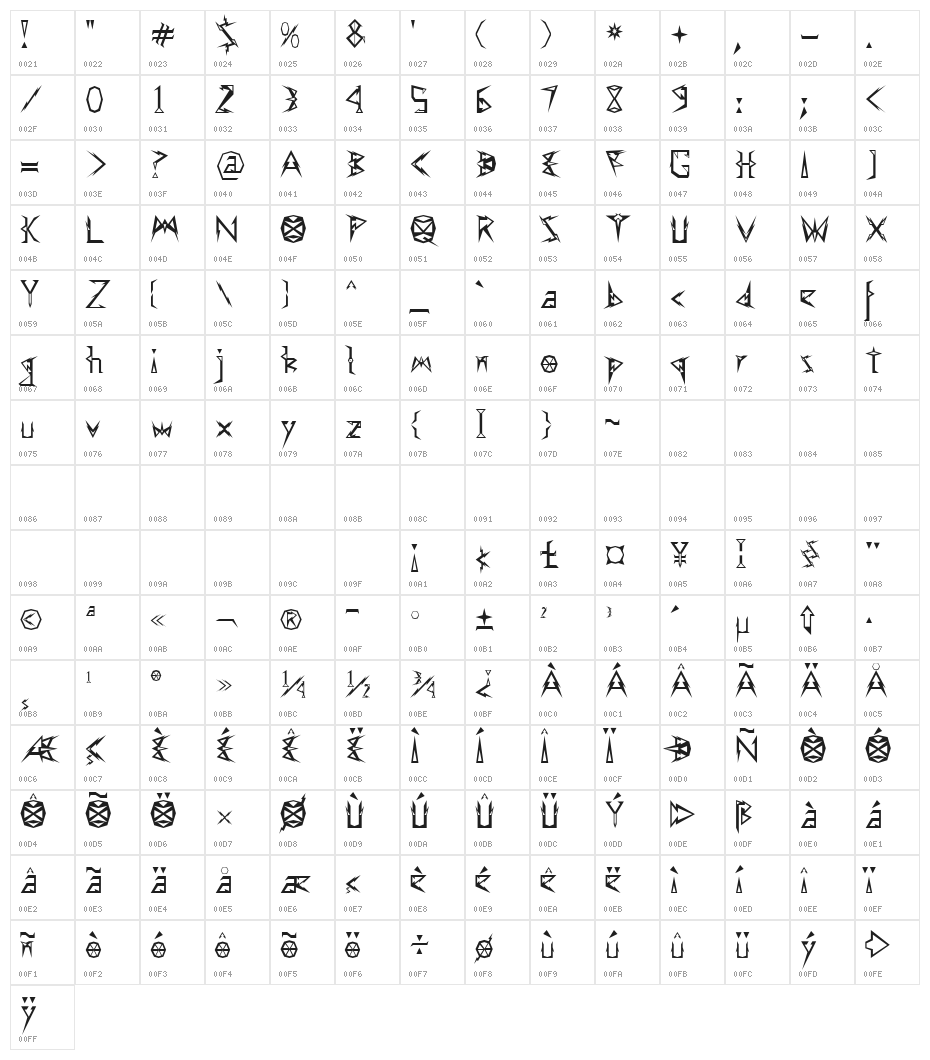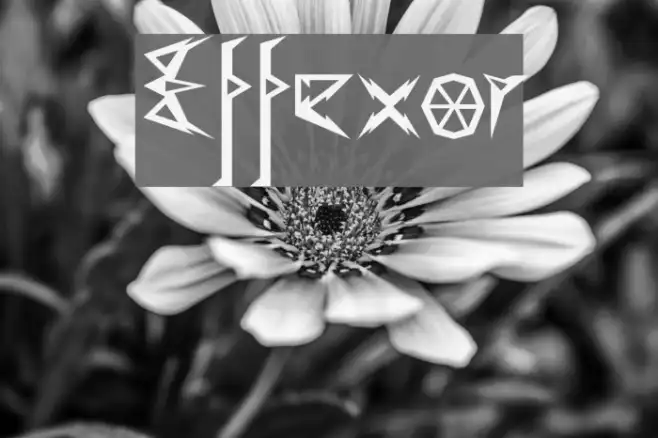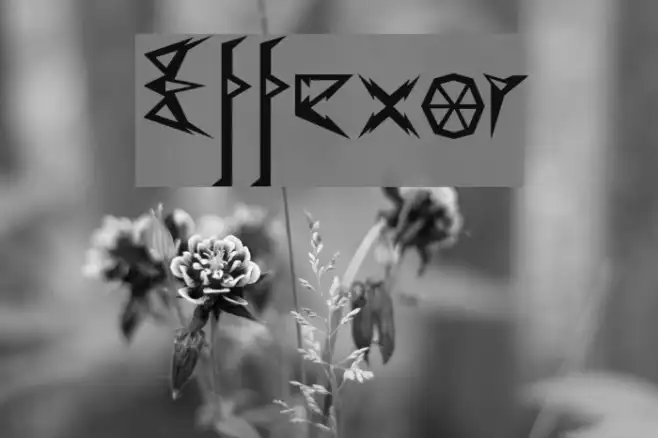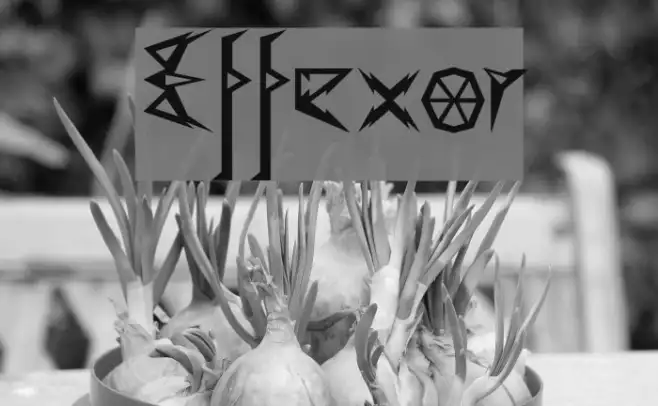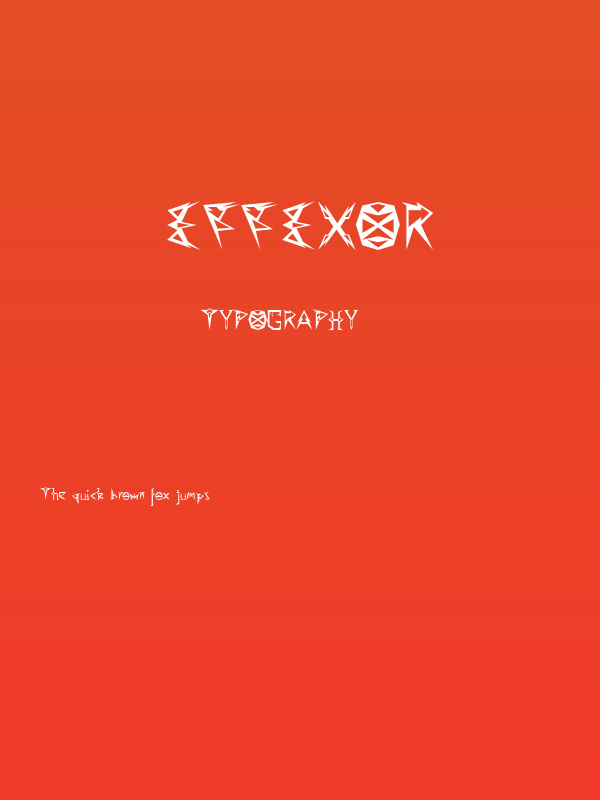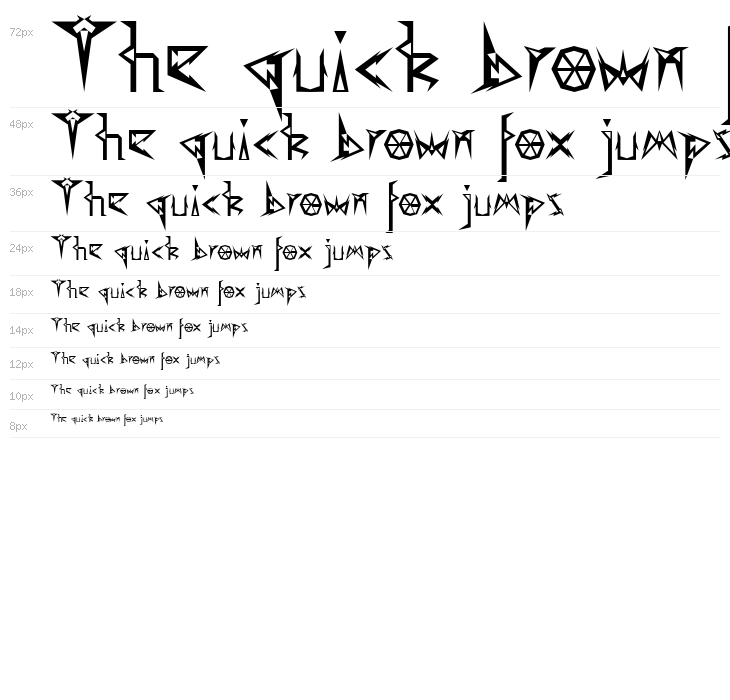
Effexor Font
Effexor Description
This font features a bold, angular design with sharp edges and geometric shapes, giving it a distinctly aggressive and dynamic appearance. The characters are constructed with a combination of straight lines and pointed angles, creating a sense of movement and energy. The uppercase and lowercase letters maintain a consistent style, with each character exhibiting unique angular cuts and forms. Numbers and special characters follow the same design principles, ensuring a cohesive look across all glyphs. The font's striking appearance makes it stand out, ideal for projects that require a bold and unconventional typeface.
| Overall Style | Modern, Edgy |
| Proposed Projects | Perfect for video game titles, music album covers, posters, and branding that requires a bold, edgy look. |